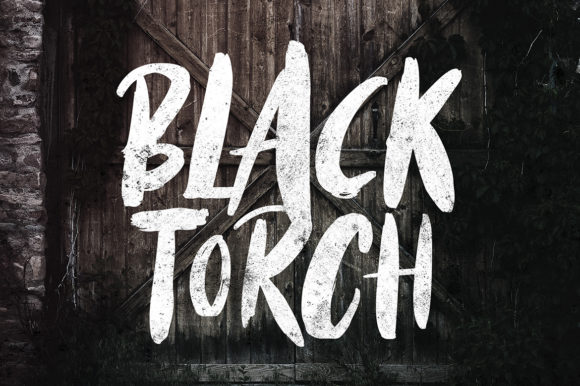
Unleash Your Creativity with Black Torch Font: A Brush Font with a Natural, Rough Edge
Are you tired of using the same old fonts in your design projects? Do you want to add a touch of uniqueness and personality to your creations? Look no further than Black Torch Font, a brush font that bursts with natural, rough, dry brush strokes. Perfect for a variety of design projects, Black Torch Font is a versatile and creative font that can elevate your designs to the next level.
What is Black Torch Font?
Black Torch Font is a brush font that mimics the look of natural, rough, dry brush strokes. With its unique and organic feel, this font is perfect for designers and crafters who want to add a personal touch to their projects. The font is designed to look like it’s been hand-painted with a black torch, giving it a distinctive and eye-catching appearance.
Characteristics of Black Torch Font
So, what makes Black Torch Font so special? Here are some of its key characteristics:
- Natural, rough, dry brush strokes: Black Torch Font features natural, rough, and dry brush strokes that give it a unique and organic feel.
- Hand-painted look: The font has a hand-painted look that makes it perfect for designs that require a personal touch.
- Black torch effect: The font features a distinctive black torch effect that gives it a bold and eye-catching appearance.
- Versatile: Black Torch Font is a versatile font that can be used in a variety of design projects, from posters and flyers to social media graphics and crafts.
Uses for Black Torch Font
Black Torch Font is perfect for a wide range of design projects, including:
- Posters and flyers: Add a bold and eye-catching touch to your posters and flyers with Black Torch Font.
- Social media graphics: Use Black Torch Font to create unique and engaging social media graphics that stand out from the crowd.
- Crafts: Black Torch Font is perfect for crafters who want to add a personal touch to their projects, from handmade cards to DIY decorations.
- Branding and packaging: Use Black Torch Font to create bold and eye-catching branding and packaging designs that reflect your brand’s personality.
Tips for Using Black Torch Font
Here are some tips for using Black Torch Font in your design projects:
- Experiment with different colors: Black Torch Font looks great in bold, bright colors, so don’t be afraid to experiment with different color schemes.
- Use it sparingly: Because of its bold and eye-catching appearance, it’s best to use Black Torch Font sparingly in your designs.
- Pair it with other fonts: Black Torch Font pairs well with other fonts, so feel free to experiment with different font combinations.
| Font Name | Black Torch Font |
| Author | Weape Design |
Black Torch Font is a unique and versatile brush font that’s perfect for designers and crafters who want to add a personal touch to their projects. With its natural, rough, dry brush strokes and distinctive black torch effect, this font is sure to elevate your designs to the next level. So why not give Black Torch Font a try and see what creative possibilities it offers?
Whether you’re a seasoned designer or a crafter looking for a new way to express yourself, Black Torch Font is a great addition to your font library. So go ahead, unleash your creativity, and see what amazing designs you can create with Black Torch Font!